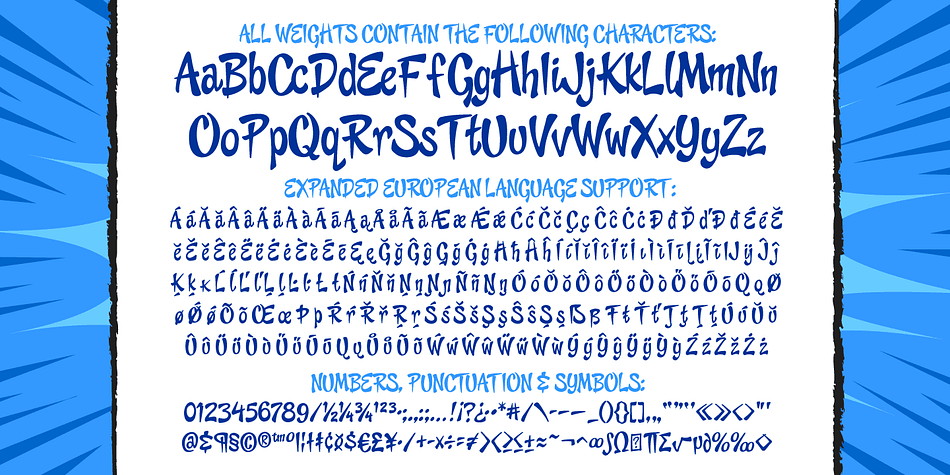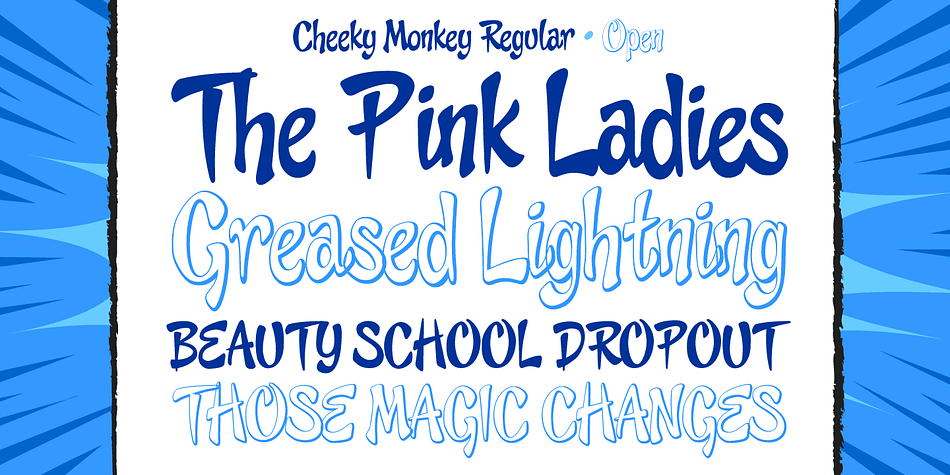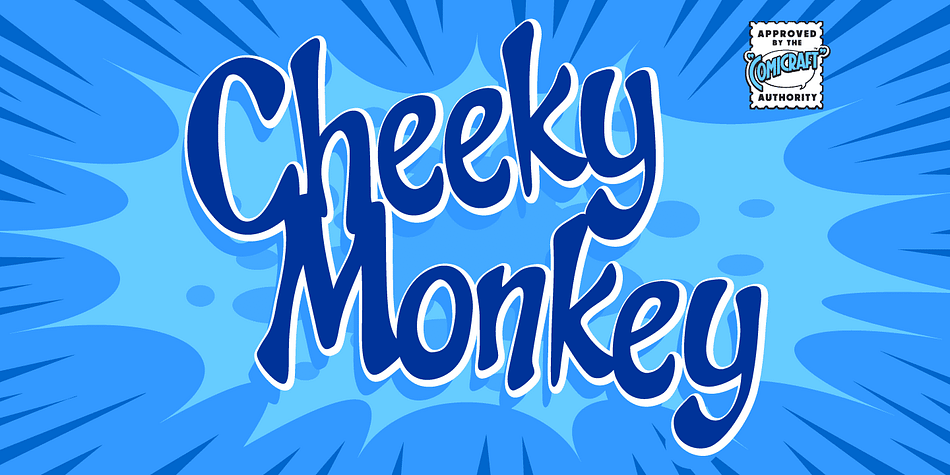
Designed by John Roshell, Cheeky Monkey is a brush display and hand display font family. This typeface has two styles and was published by Comicraft.
Homespun by Homely Nina Green (nee Nina Sutcliffe), over 18 years ago for her old college pal, Mister Comicraft (ne Richard Starkings), CHEEKY MONKEY is a chirpy and cheerful character set which has found its way over the years onto the title pages of comic books as disparate as Captain Britain, Doctor Who and Darkman. We’ve kept it to ourselves all this time because we thought it was just too precocious for mass consumption and way too impudent for its own good. Don’t turn your back on this font, baby, or it might pinch your bum!